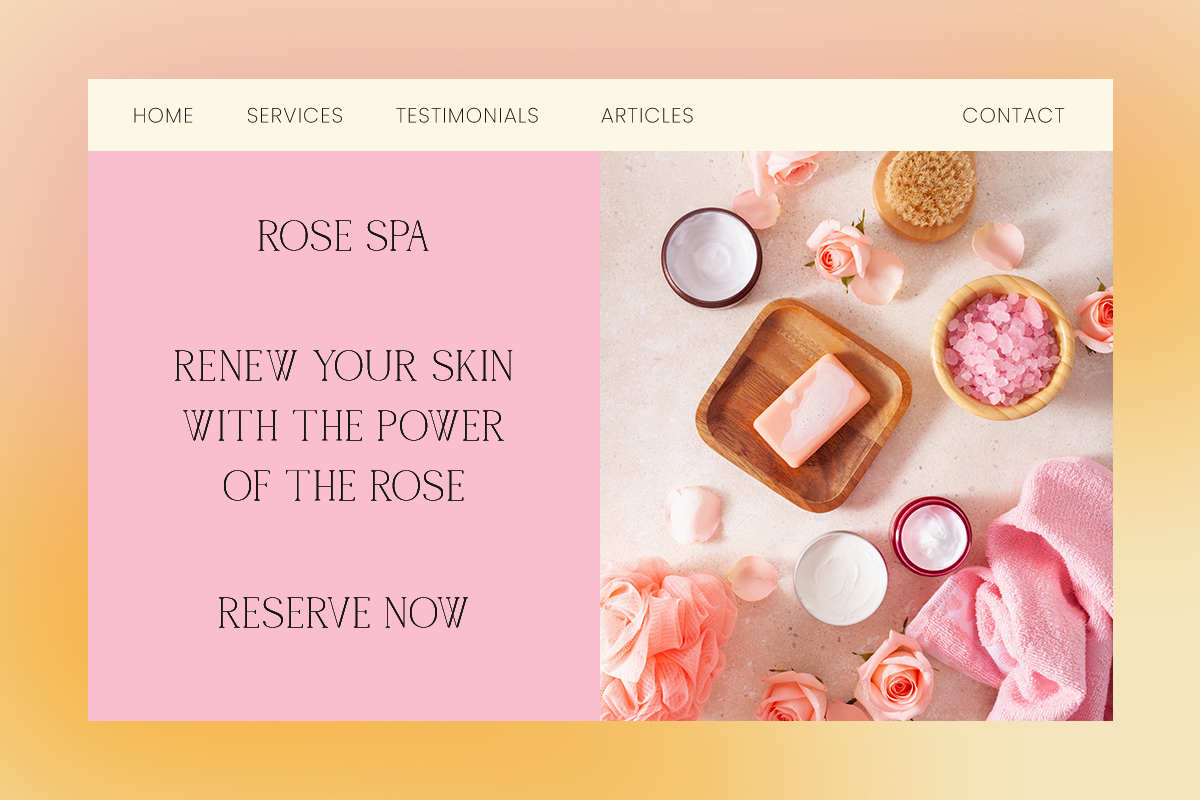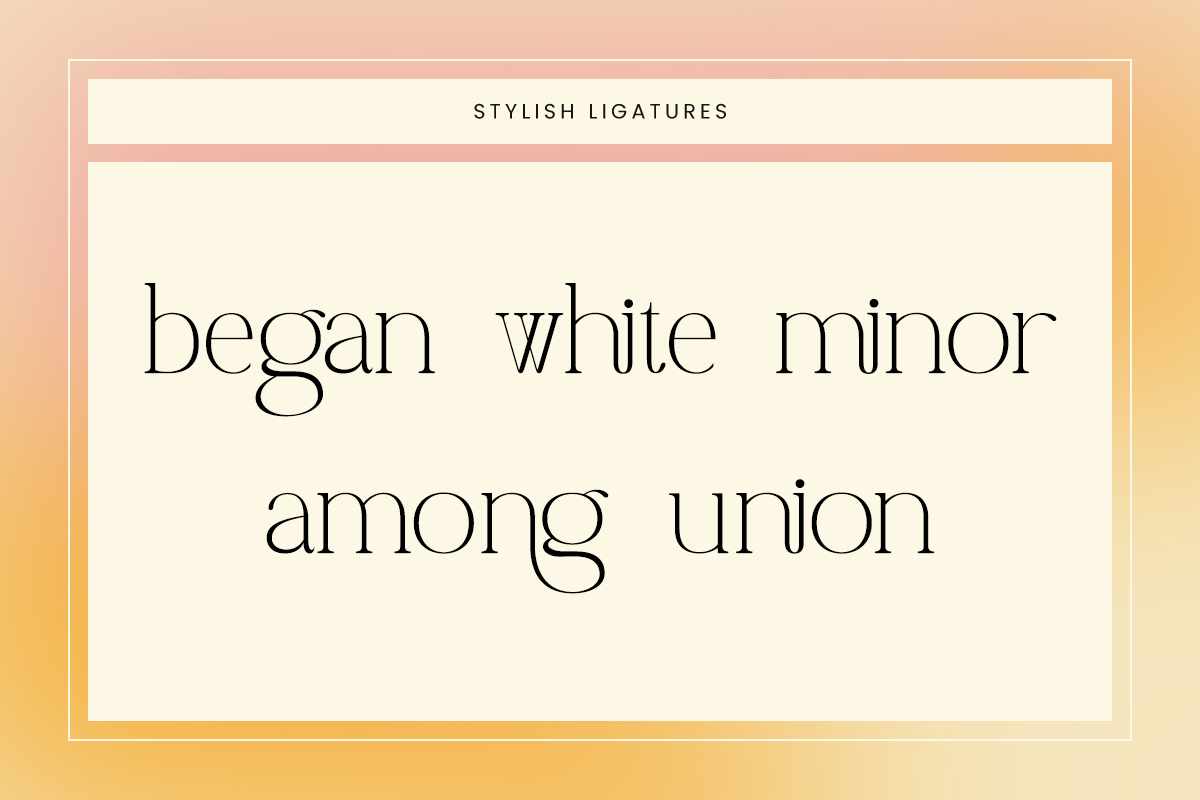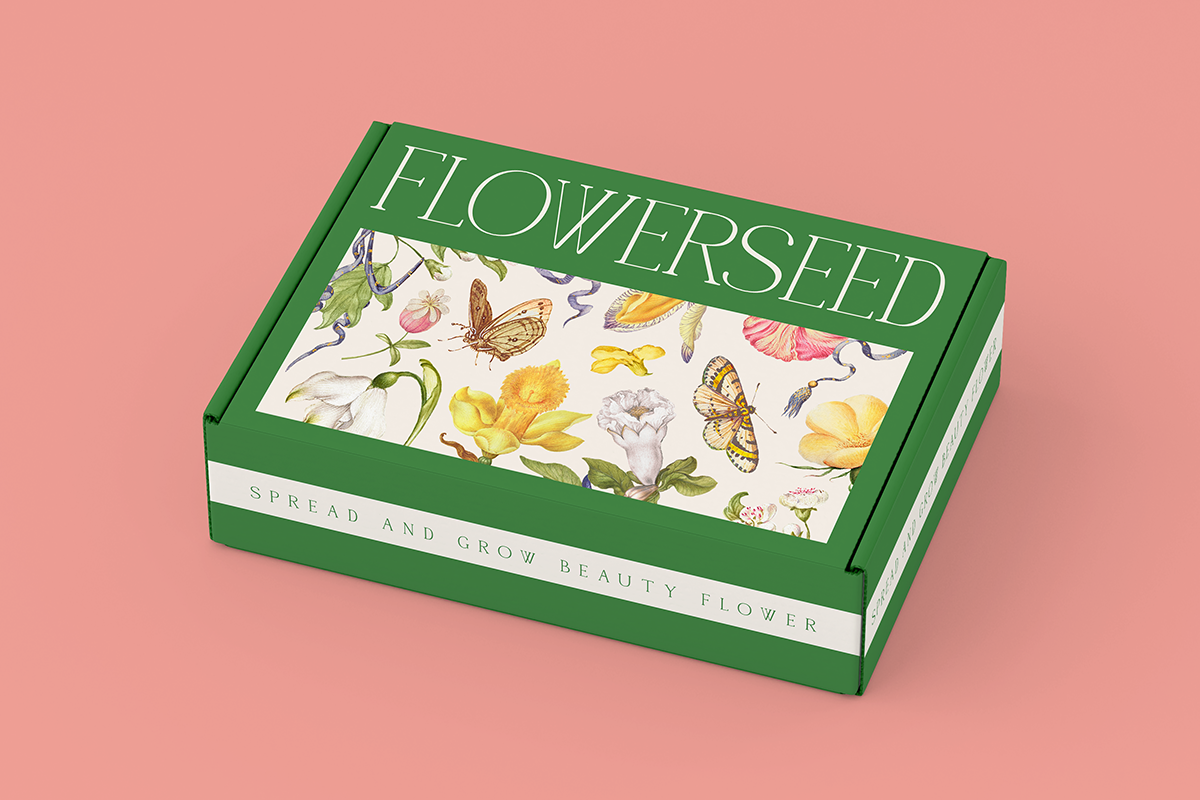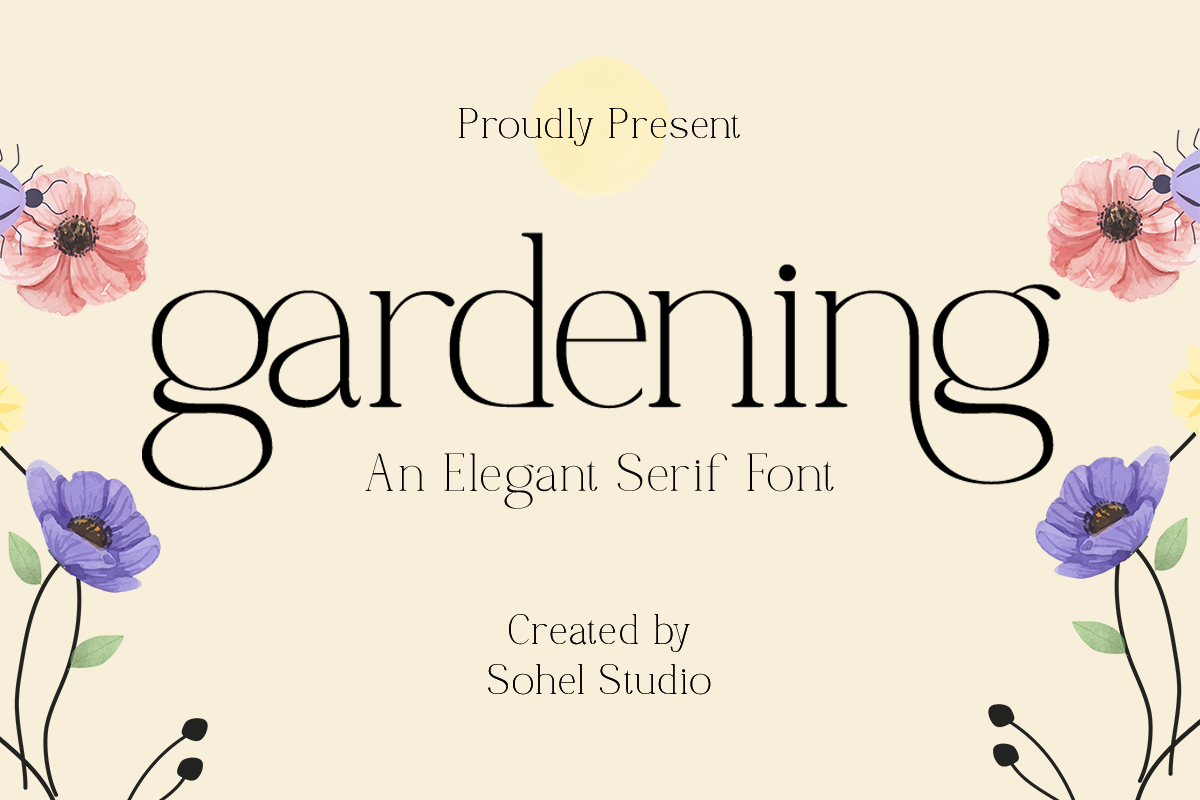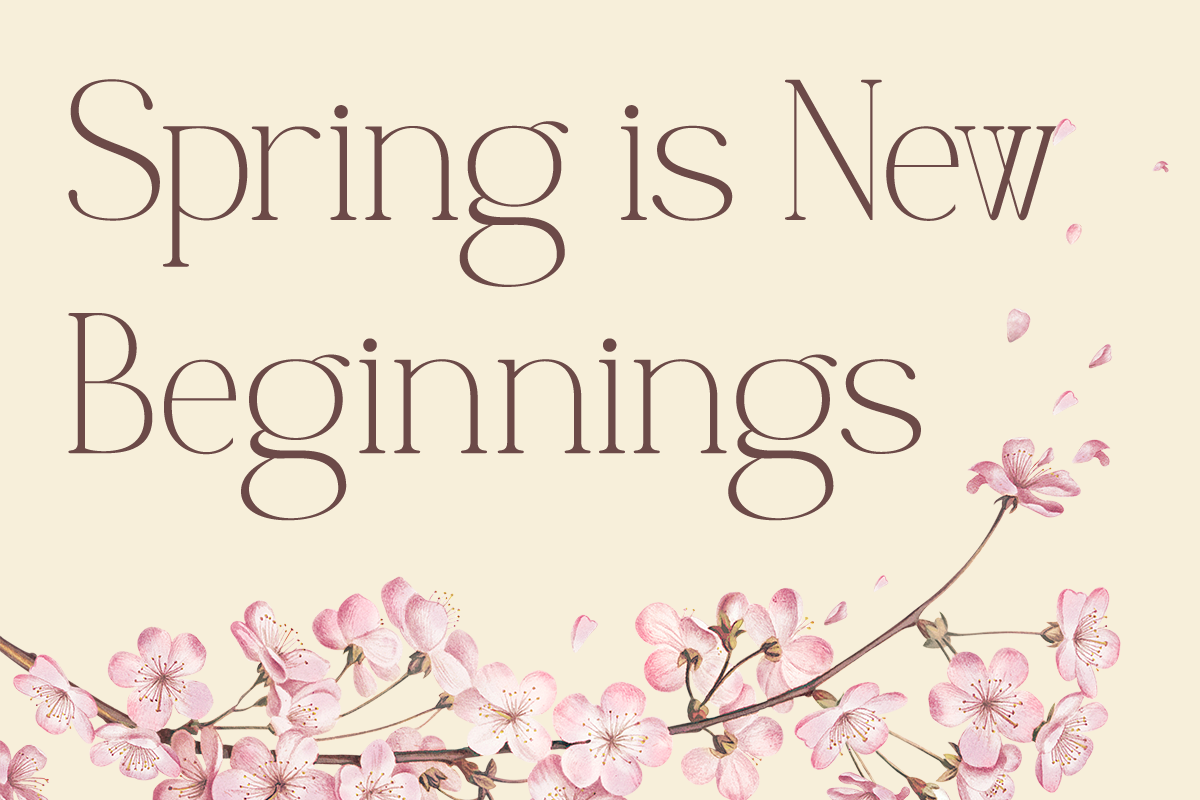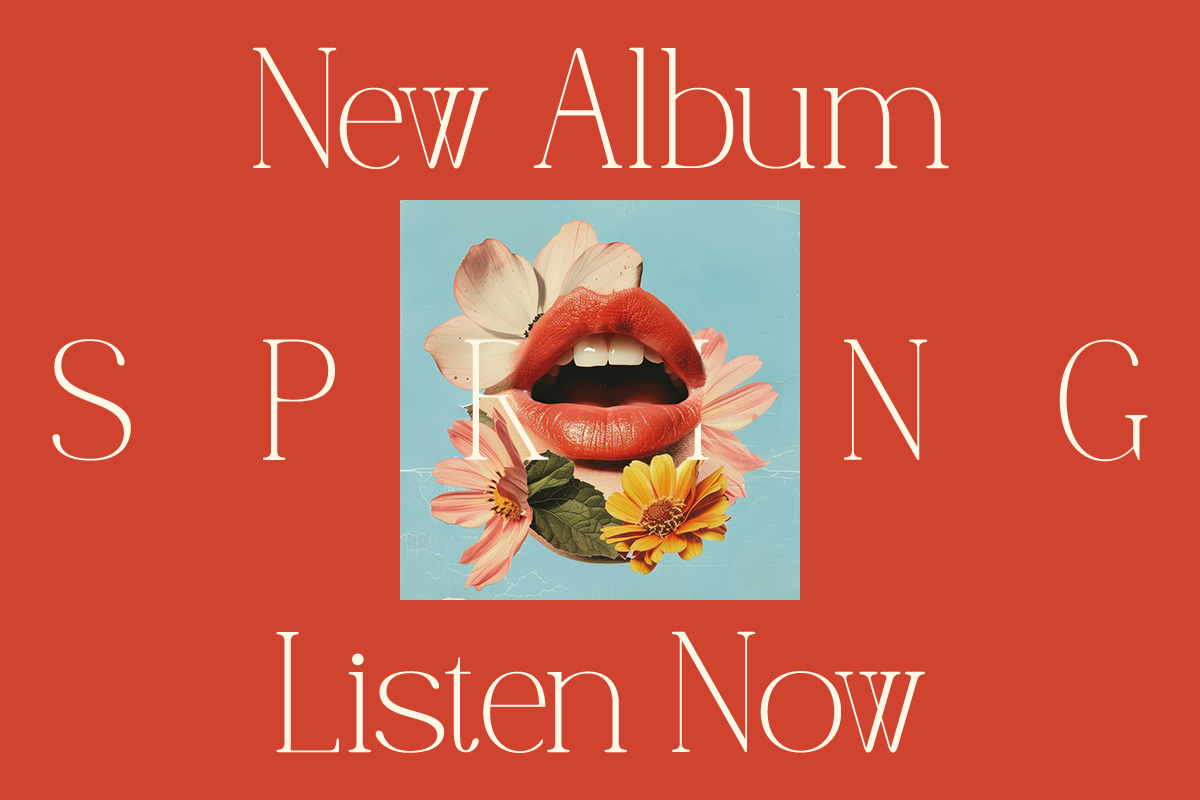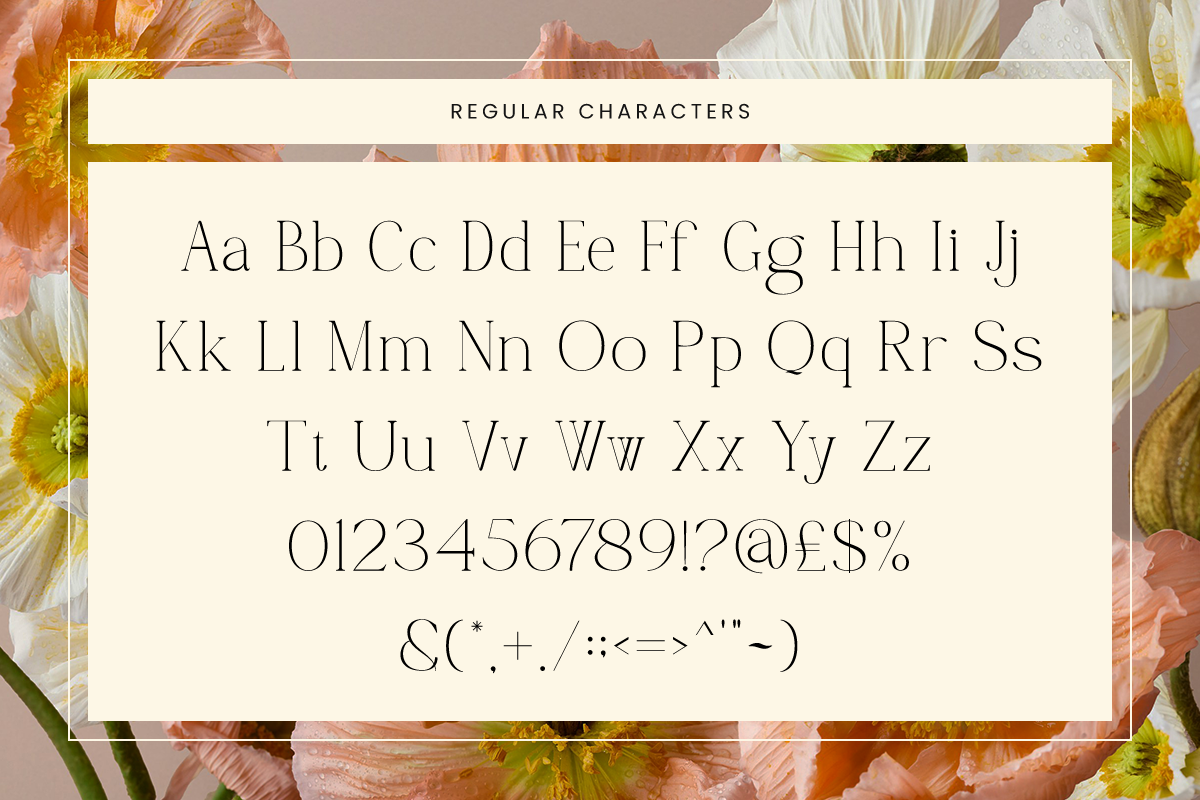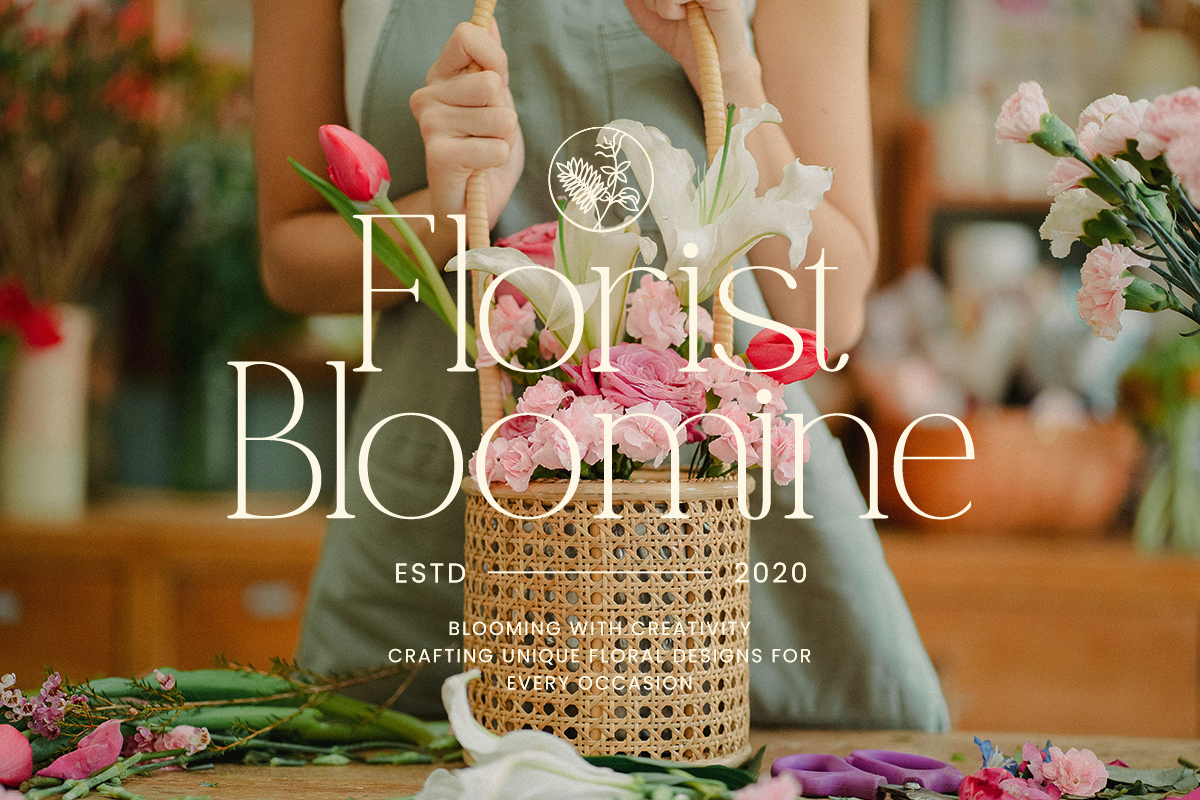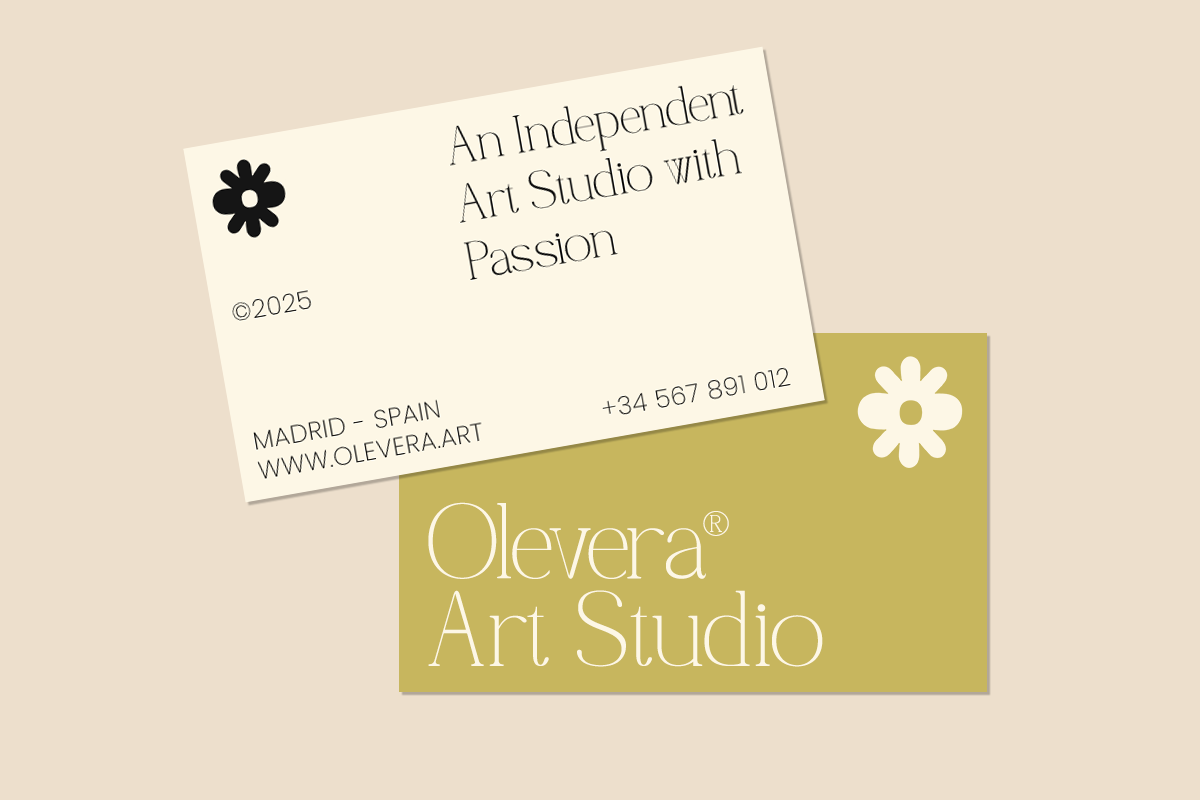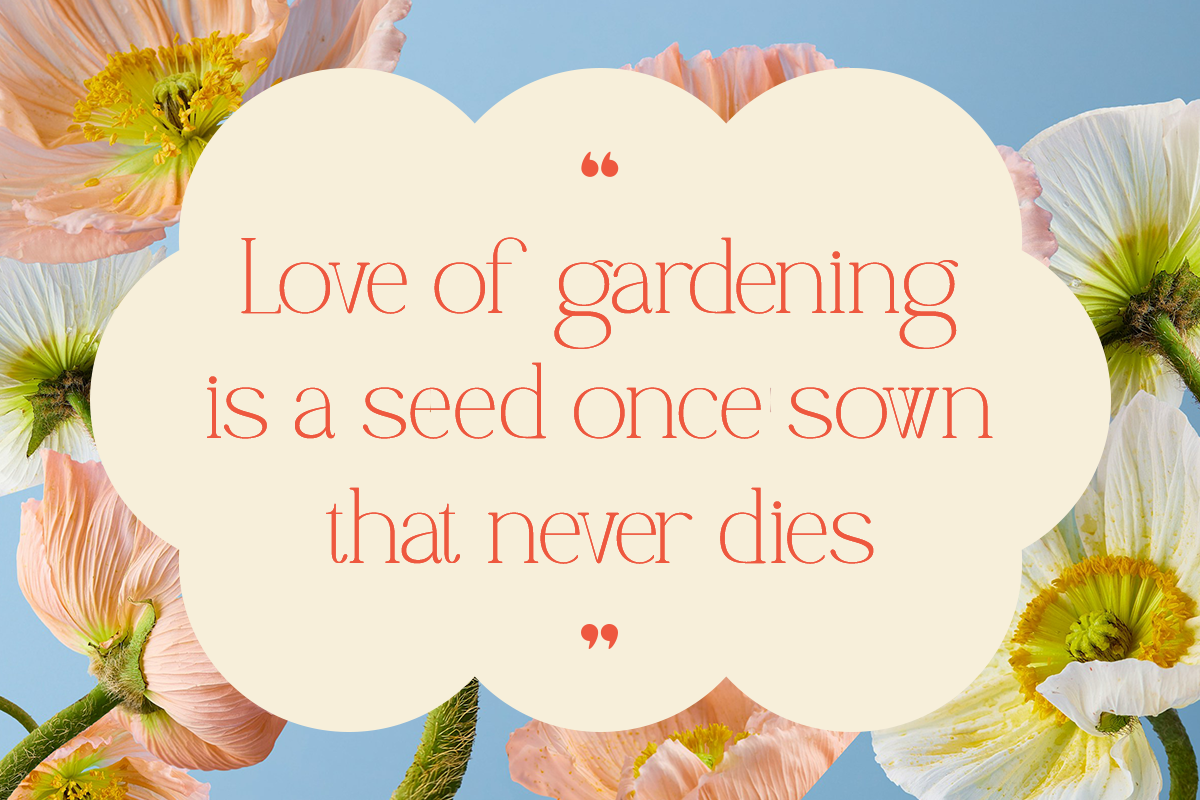
Gardening – Elegant Serif Font
Gardening is an elegant serif font with a natural touch, perfect for various creative projects. Its sleek design and graceful letterforms make it ideal for branding, invitations, magazines, packaging, and more. With unique typographic elements, Gardening brings a classic yet modern feel.
- Elegant Thin Serif Style: Adds a touch of sophistication to any project.
- Unique Alternates: Provides creative flexibility and uniqueness.
- Versatile Use: Ideal for branding, invitations, magazines, logos, and more.
- High-End Aesthetic: Perfect for luxury and refined design projects.
- Full Set of Characters: Uppercase, lowercase, numerals, punctuation, and symbols.
- Unique Alternates: For creating distinctive and personalized designs.
- Multilingual Support: Includes characters for multiple languages.
- Bonus Glyphs: Additional decorative elements to enhance your designs.